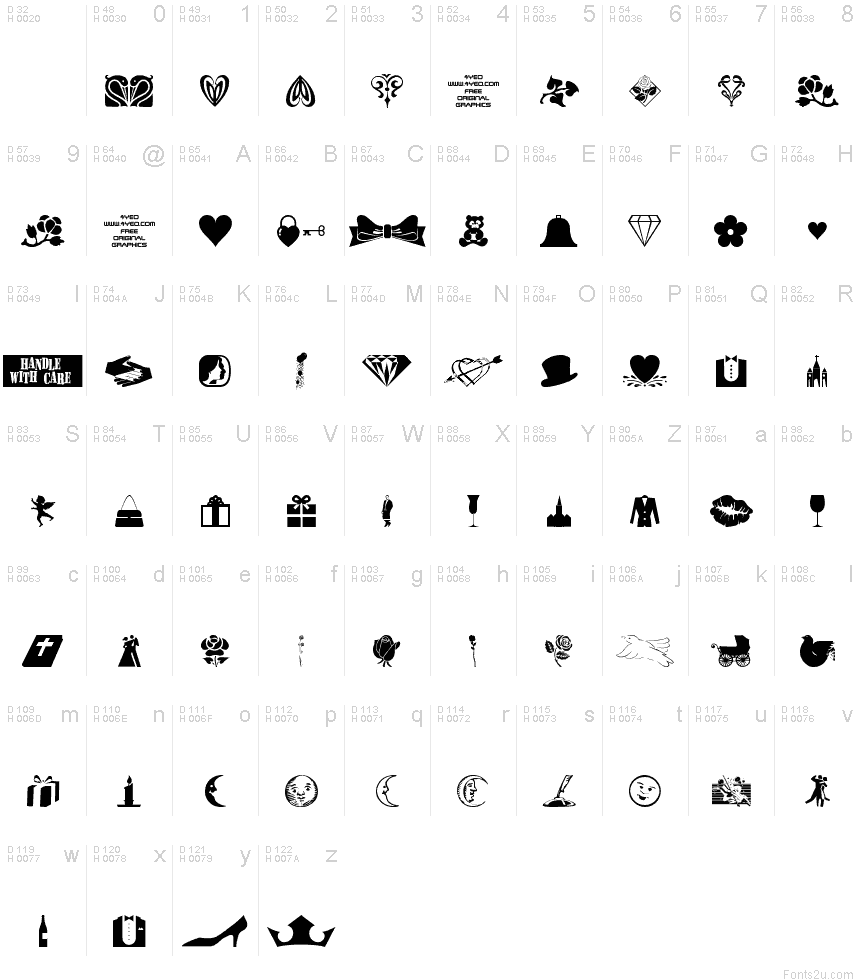
4YEOVAL
4YEOVAL is a striking dingbat font that commands attention. Characterized by bold, graphic symbols, this font exudes a distinct personality. The shapes range from the organic curves of a rose to the sharp angles of a cross, creating a visual tapestry of diverse elements. 4YEOVAL's versatility lends itself to a wide array of applications, from editorial design to packaging, where its edgy aesthetic can add an impactful, expressive touch.
Designers seeking to inject a sense of drama and character into their work will find 4YEOVAL a compelling choice.